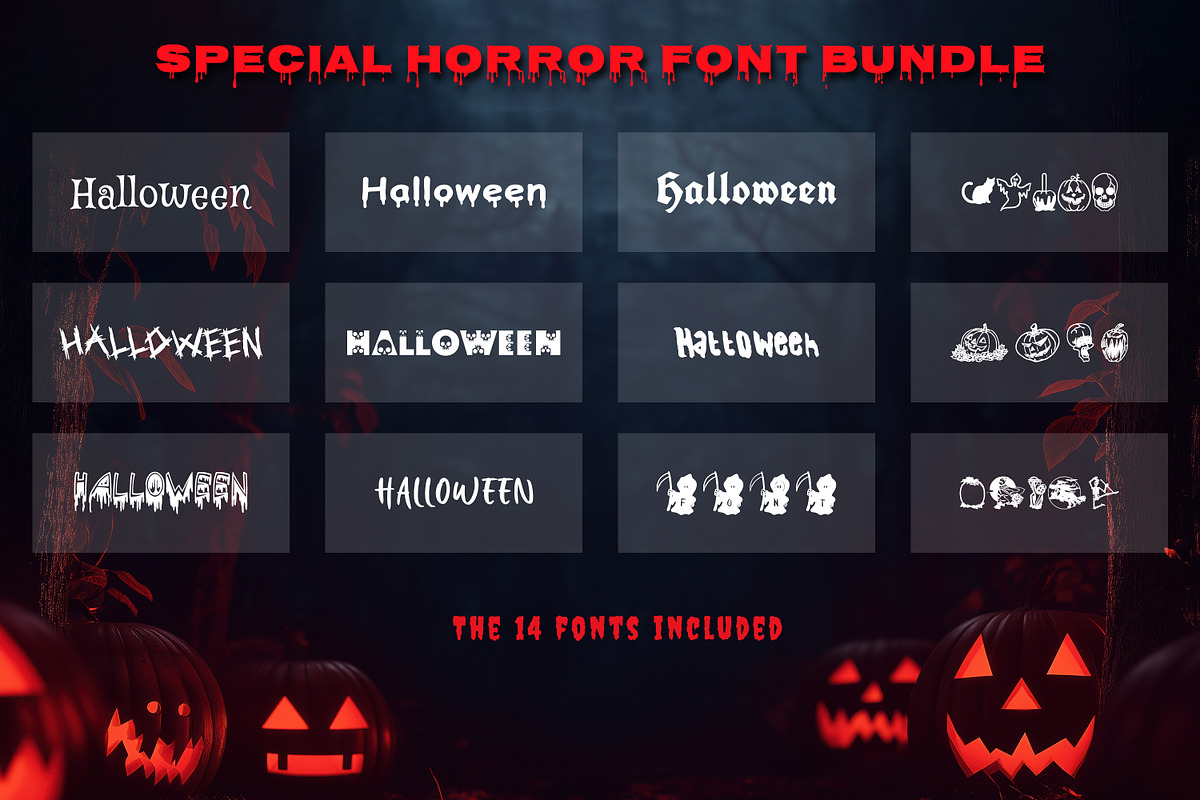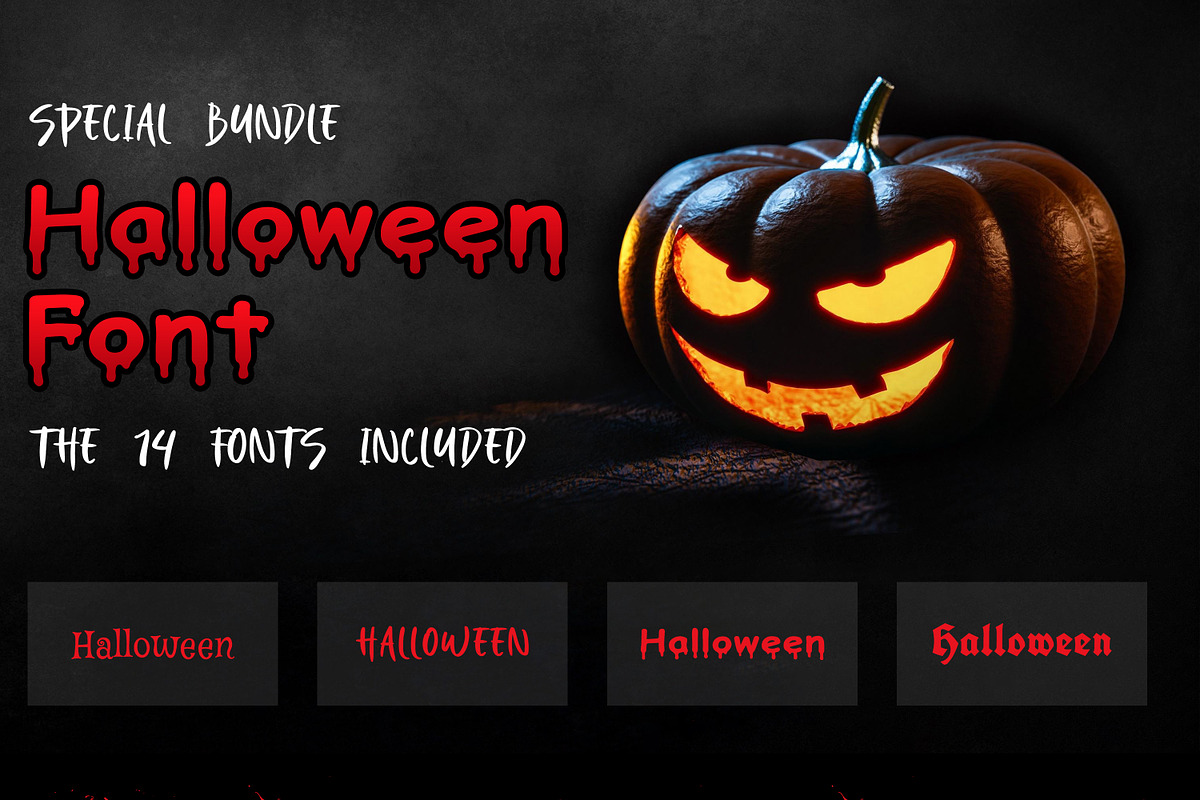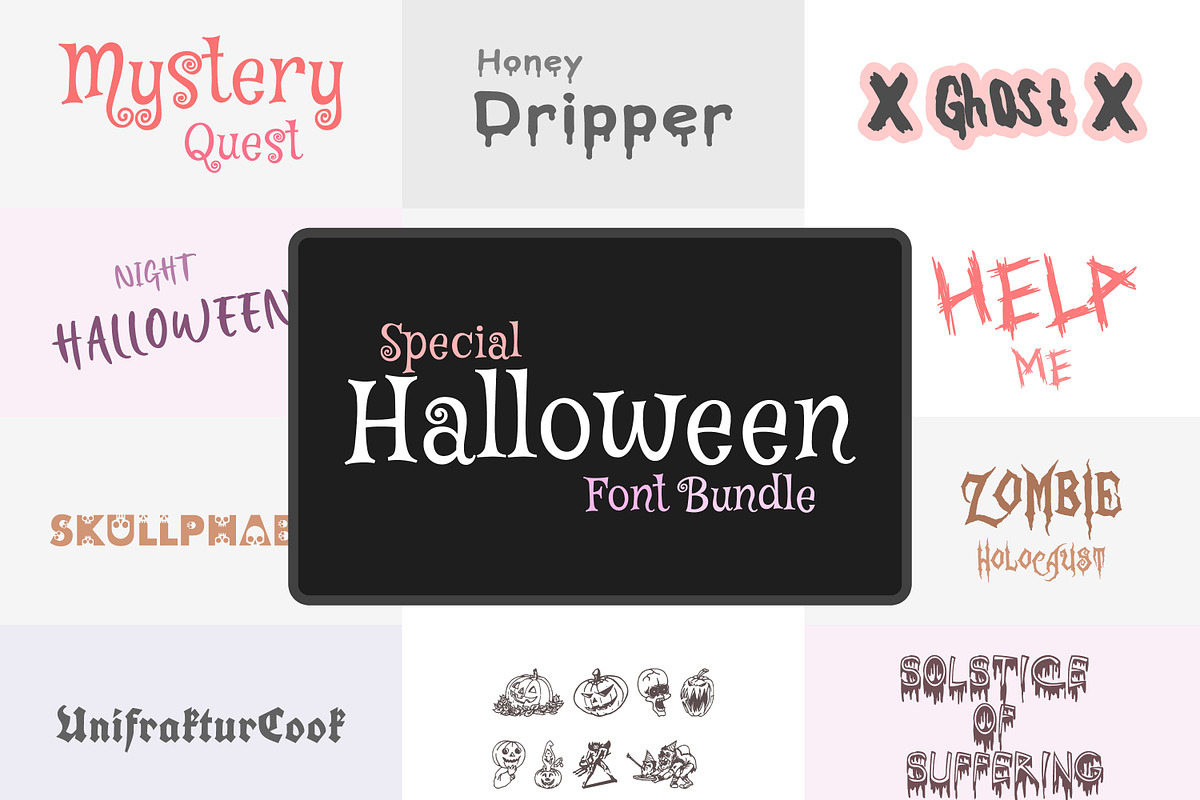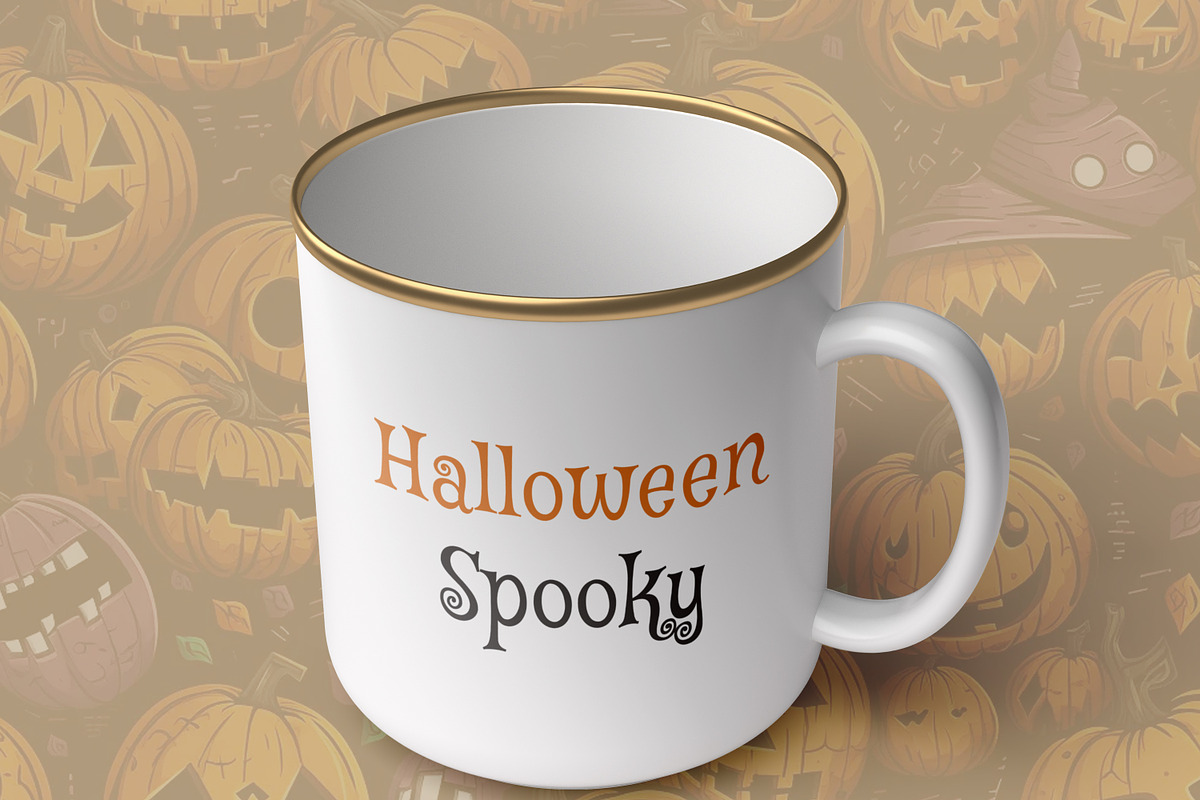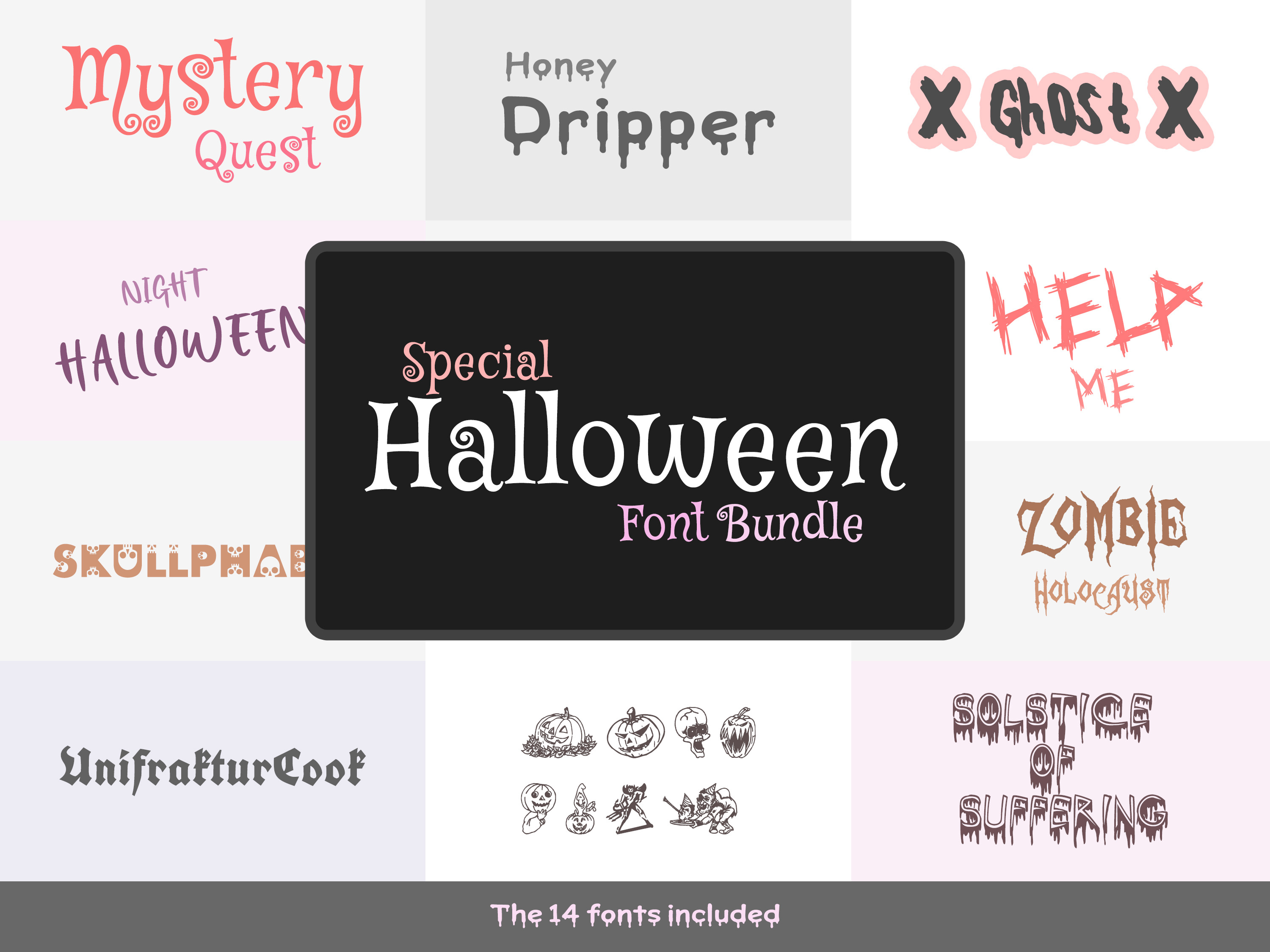
Spooky 14 Halloween Font Collection
Level up your Halloween designs with this expertly curated collection of 14 free-to-use spooky fonts—perfect for seasonal branding, party invites, apparel, decor, and digital graphics. Featuring a broad spectrum of styles from dripping horror to gothic elegance and playful monster scripts, these fonts come in both .TTF and .OTF formats and are ready for commercial use.
• A versatile mix of styles caters to different Halloween aesthetic needs